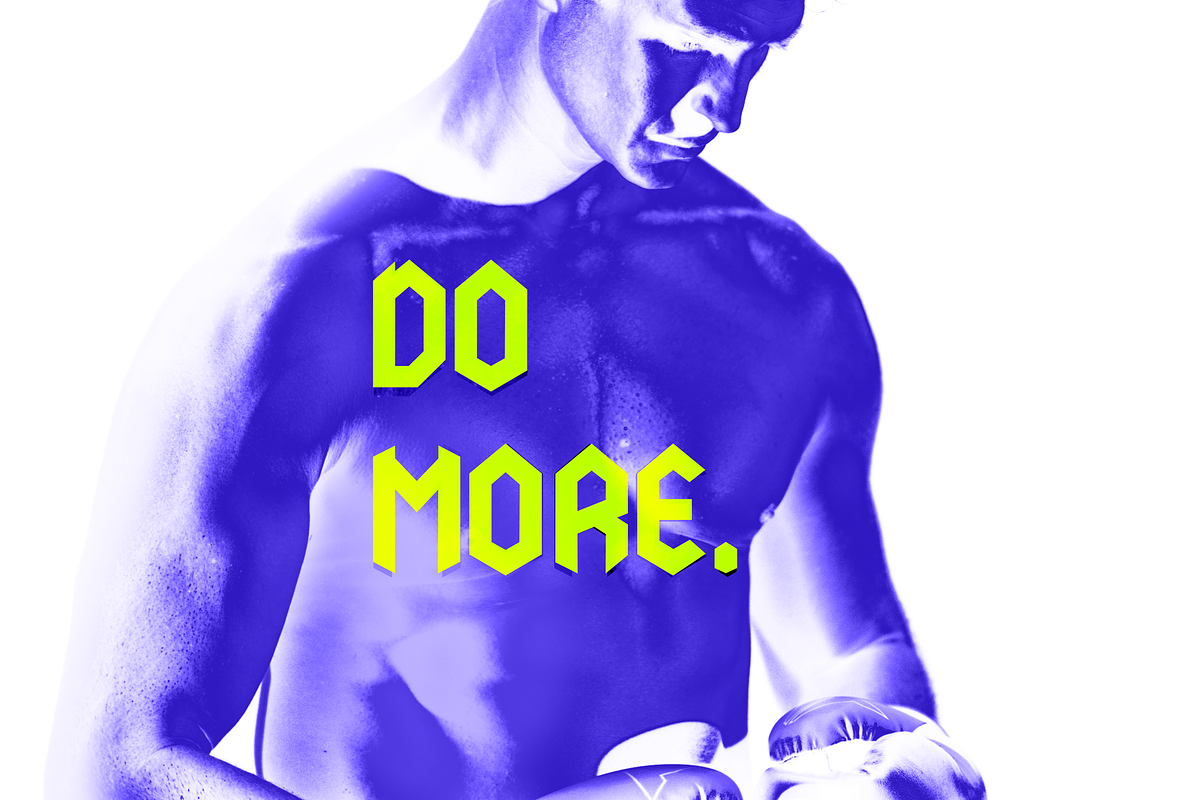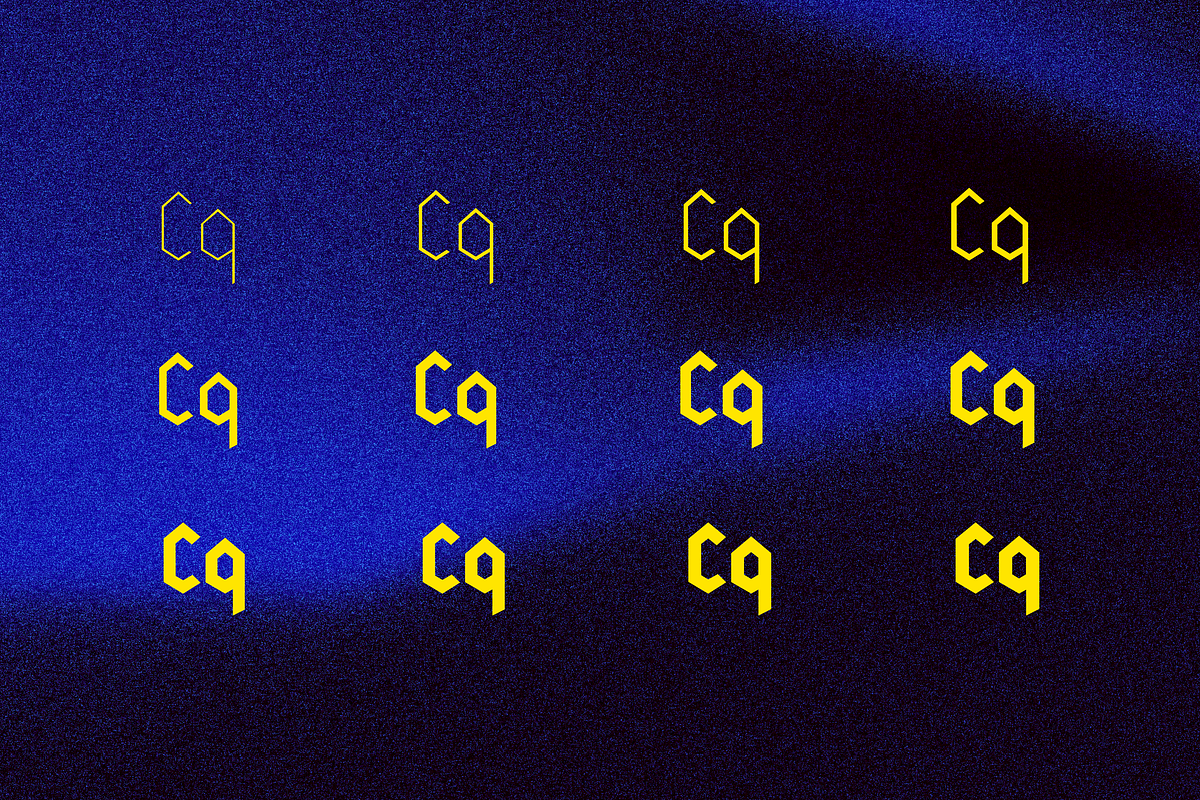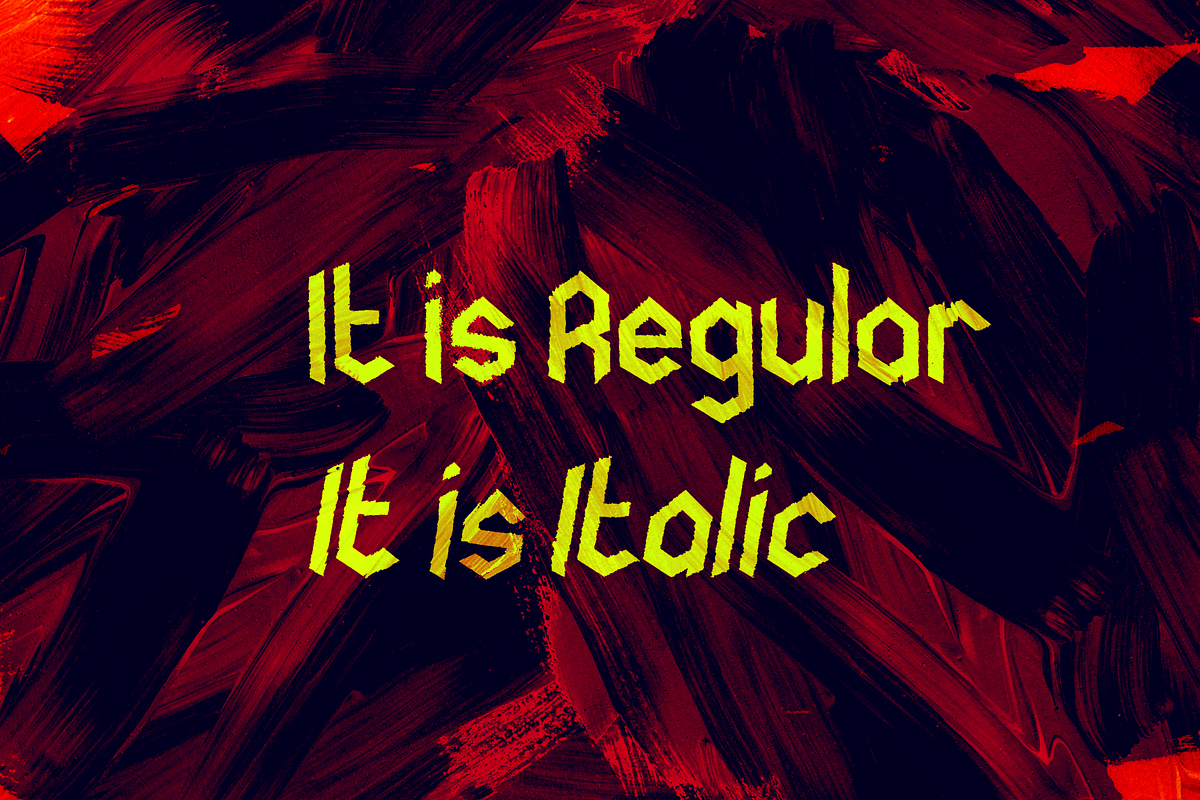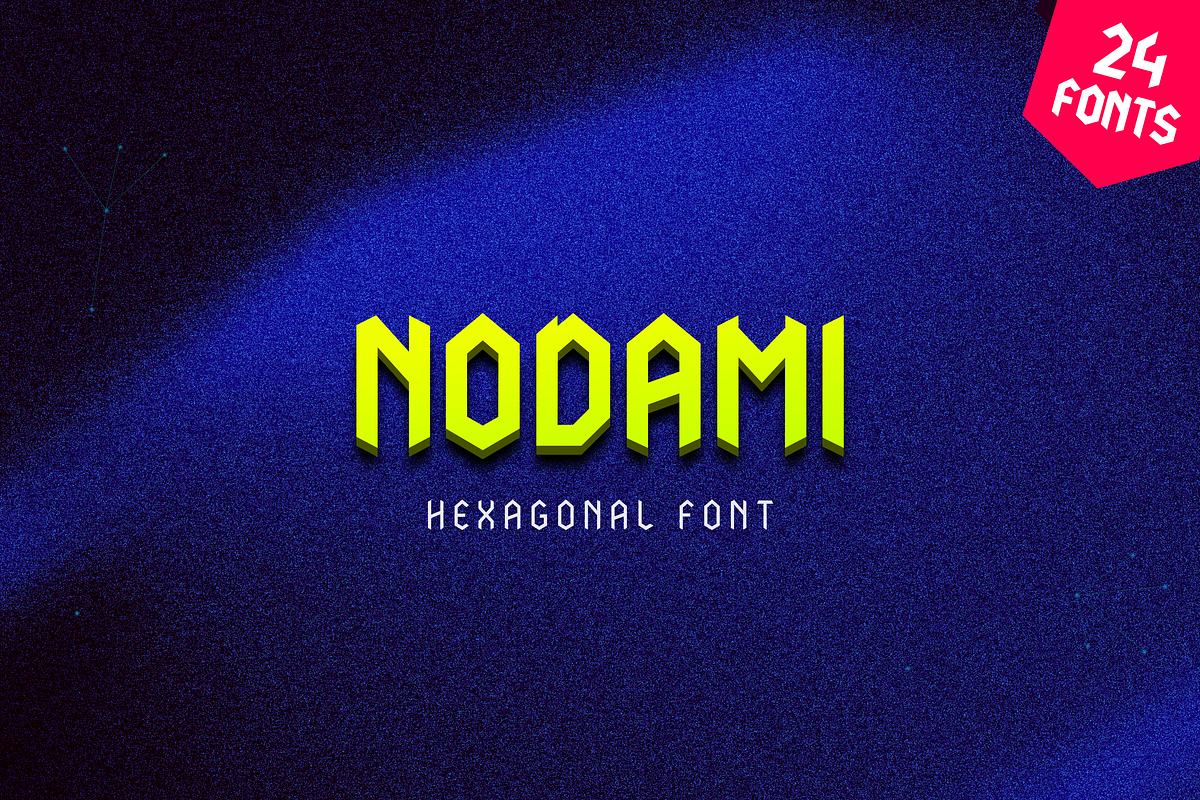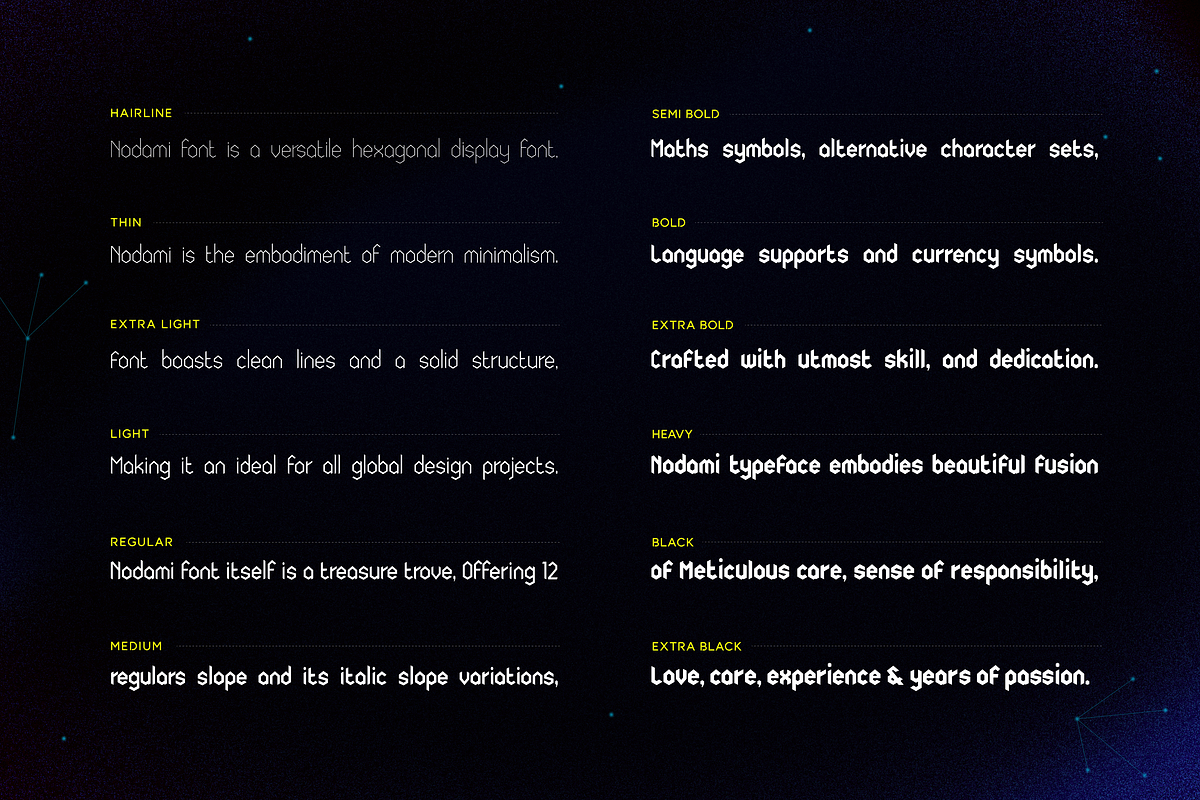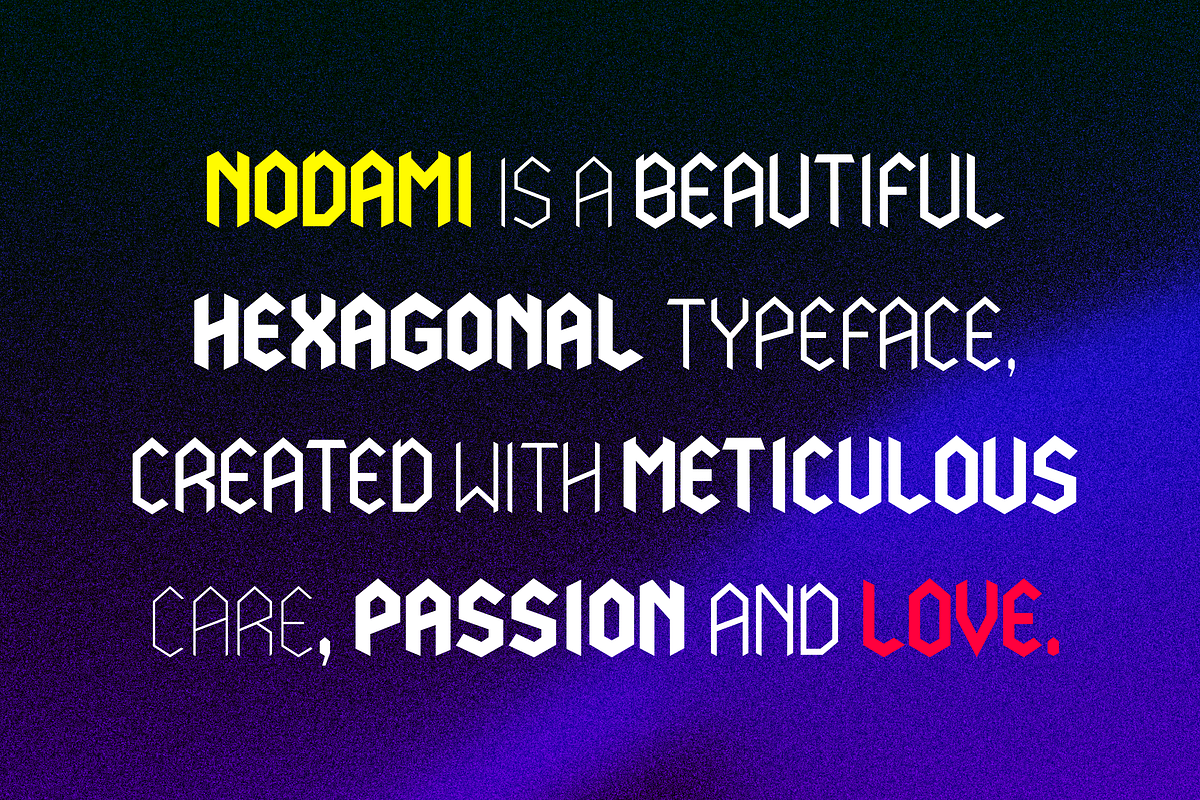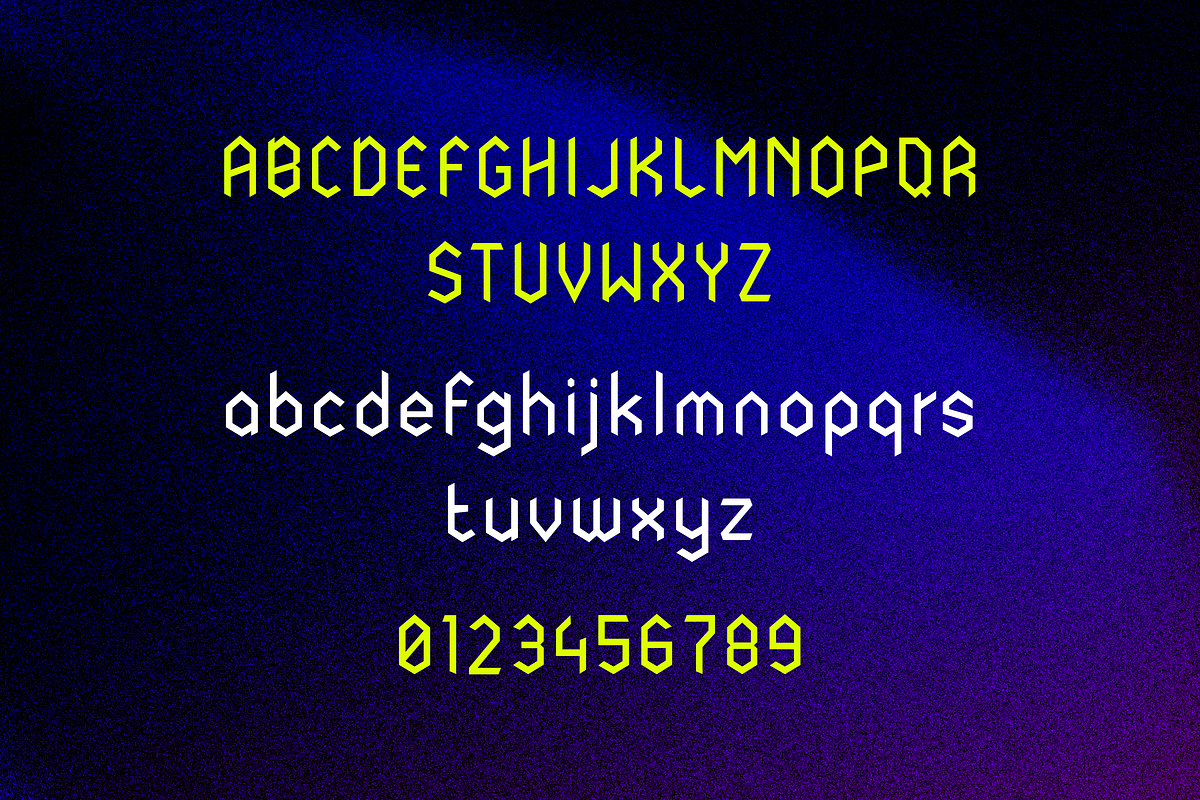
NODAMI FONT FAMILY - 24 fonts
Nodami is a modern hexagonal heading font, the symmetric nature of the typeface contributes to its clean and crisp aesthetic, making it exceptionally well-suited for headings, titles, and highlighted texts. Nodami encapsulates the geometric precision and strength found in nature's honeycomb, bringing a unique blend of modern design and structural resilience to your typographic projects. Nodami includes 12 regular and 12 italic variations, giving you a total of 24 different fonts with each consisting of 400 glyphs.
- Extended language support
- Mathematical symbols
- Currency symbols
- Alternate stylish letters
- Directional arrows
- Special ligatures